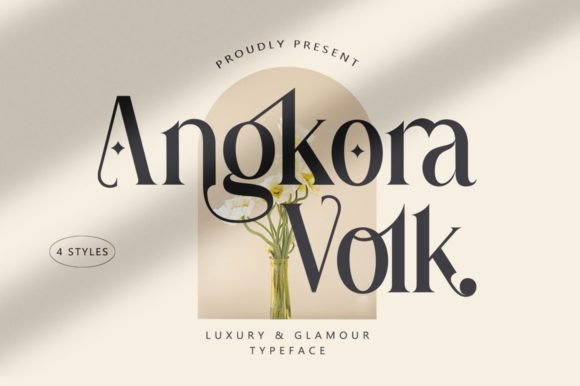
Adorn your wedding book with an OpenType dance of letters, Angkora Volk – a serif font that weaves magic into your words. Step into a realm of elegance, where letters intertwine gracefully, evoking a timeless symphony of love. Experience the enchantment as your story unfolds, each word adorned with a touch of whimsy and charm.
Angkora Volk is not just a font; it's an artistic expression of two hearts entwined. Let your wedding book whisper your love story in a voice that echoes the rhythm of your hearts. With its PUA-encoded features, you can effortlessly access a treasure trove of glyphs and ligatures, transforming your text into a visual masterpiece.
Imagine your vows rendered in the enchanting swirls of Angkora Volk, each letter a heartfelt brushstroke painting a picture of your love. The sweeping serifs dance across the page, creating an enchanting aura that captures the essence of your special day. Let your wedding book become a timeless heirloom, a tangible testament to the love that binds you together.
Angkora Volk is more than a font; it's an invitation to embark on a typographic journey of love and enchantment. Elevate your wedding book beyond the ordinary, transform it into a work of art that reflects the beauty of your love story. Make Angkora Volk the voice of your hearts, whispering your love to the world.